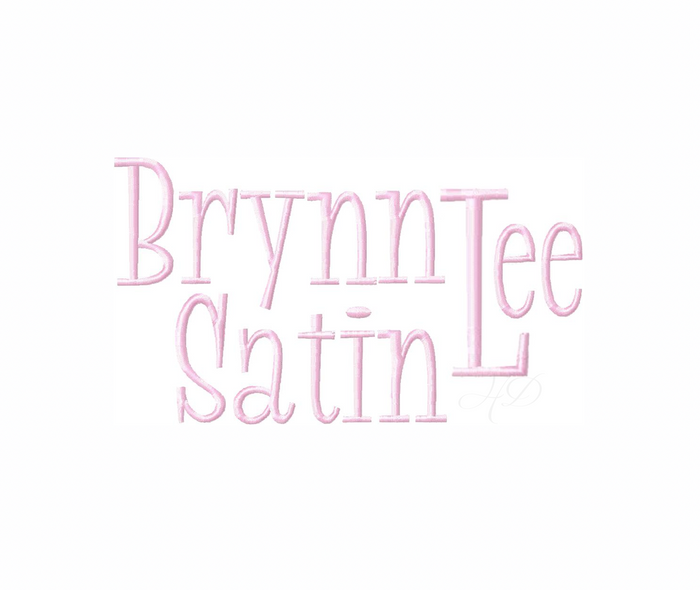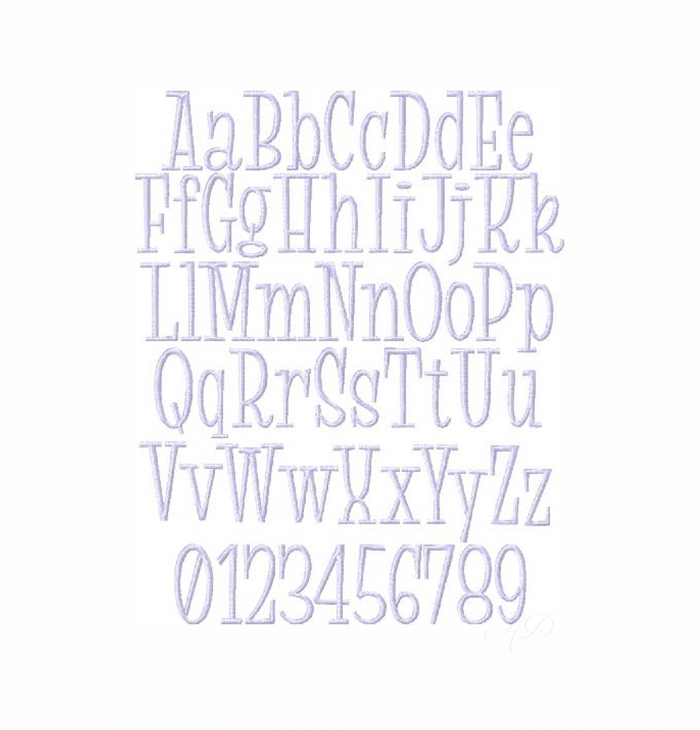
Brynn Lee Satin Stitch Font Package - 4x4 Embroidery
Unlock your creative potential with the Brynn Lee Satin Stitch Font Package, designed specifically for embroidery enthusiasts. This versatile collection includes five sizes that perfectly fit within a 4x4 embroidery hoop, making it ideal for personalizing backpacks, jean jackets, and camp wear.